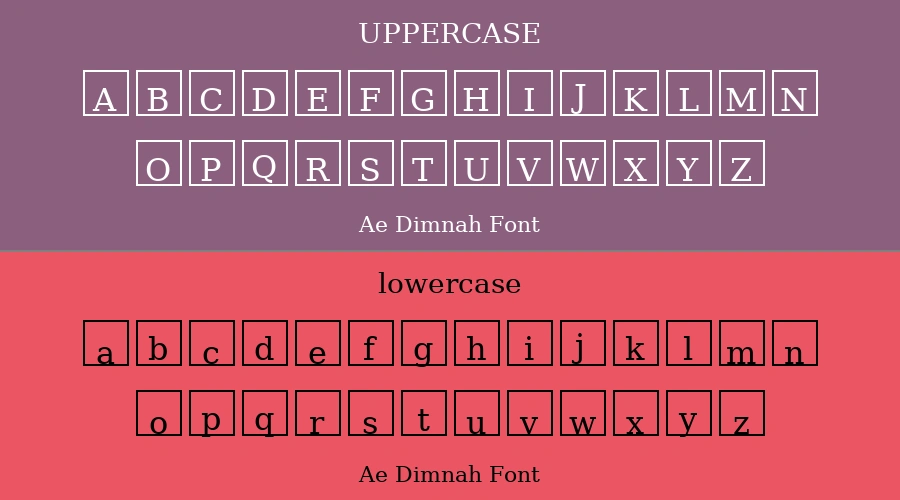
About Ae Dimnah Font
Ae Dimnah Font embodies typographic excellence through its masterful combination of curved brackets and textual warmth. Created for product packaging, this typeface delivers exceptional memorability and generational appeal across all applications. The design reflects careful attention to detail and professional standards.
Advanced capabilities include distinctive dramatic swashes and versatile numerator/denominator, giving designers creative control. When used in marketing collateral, Ae Dimnah Font exhibits remarkable reliability. The harmonious balance between descender depth and artistic merit sets this typeface apart.